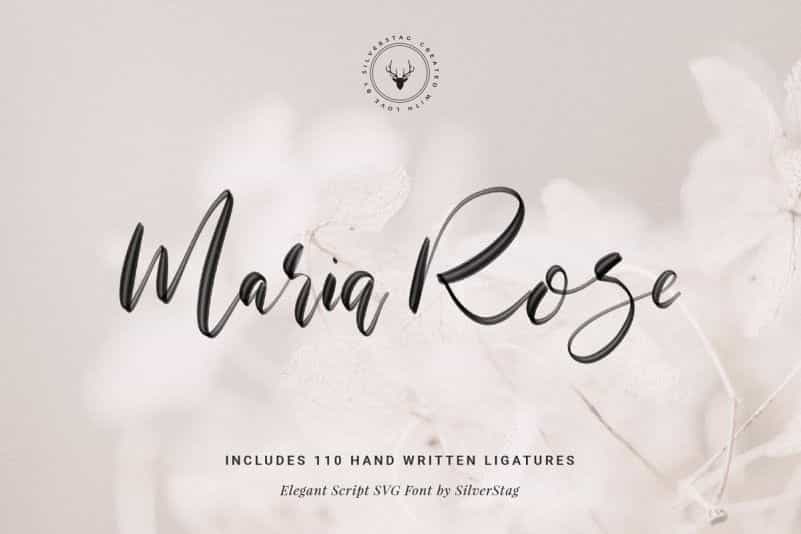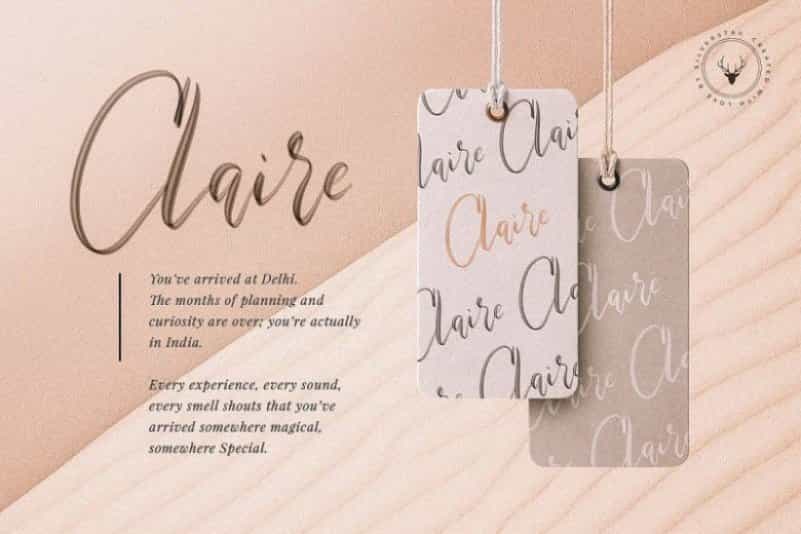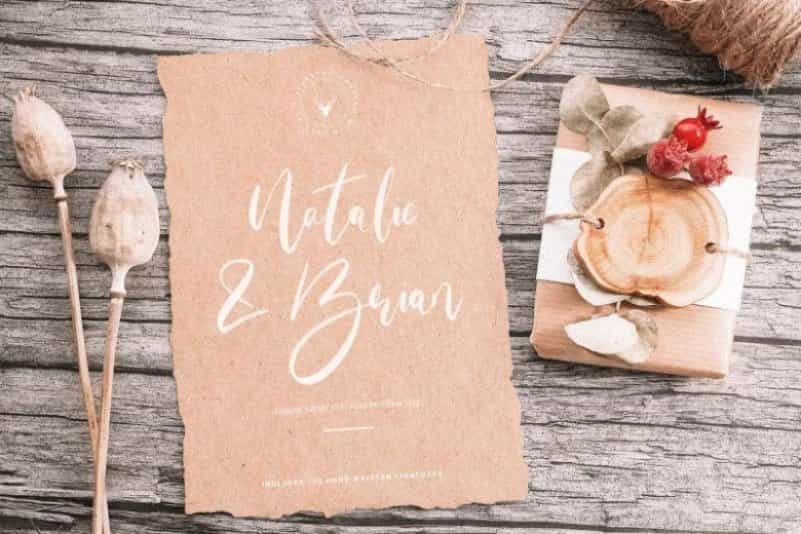
Here is Maria Rose SVG Script Font. Maria Rose is a graceful SVG Font that looks and feels like it was hand drawn. This is a beautiful SVG script font that has a realistic hand-lettered watercolour look It’s perfect for all feminine logo projects, printed quotes, lovely wedding invitation cards, social media headers, product packaging and many more!